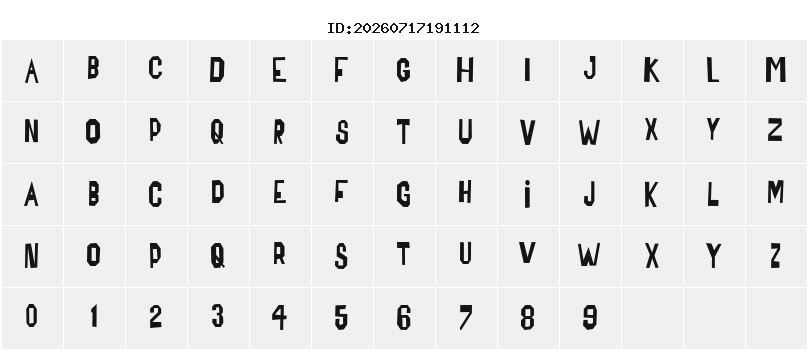
Bensfolk Condensed Preview
About Bensfolk Condensed.ttf
Bensfolk Condensed.ttf is a modern, elegant sans-serif font designed for ultimate readability and visual harmony. Perfect for branding, headlines, web design, and print materials.